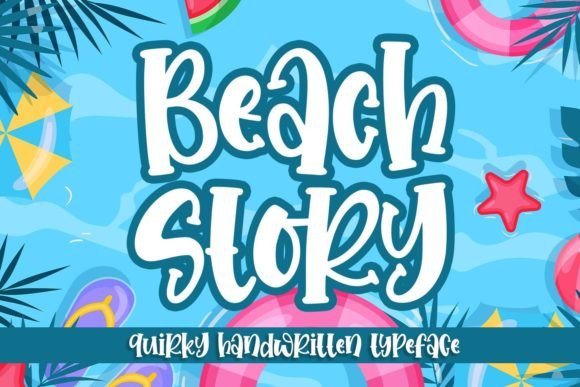
Beach Story, a wave of creativity, awaits your imagination! Splash into a realm of boundless design possibilities with this captivating script font. Discover a world where your words dance and twirl, leaving a trail of joy and wonder in their wake. Immerse yourself in the carefree spirit of the beach, where creativity flows like the ocean and laughter fills the air.
Unleash your inner artist and let Beach Story guide you through a journey of boundless creativity. With its playful and quirky nature, this handwritten display font adds a touch of friendly charm to any design project. Whether you're crafting game cards, invitations, posters, or social media posts, Beach Story will elevate your words with its infectious energy.
Visualize the delight on your customers' faces as they receive their game cards, each one adorned with unique and whimsical typography. The flowing lines and cheerful characters of Beach Story effortlessly capture the essence of fun and excitement, inviting players to dive into the game with enthusiasm.
With Beach Story as your creative companion, you'll find inspiration in the unlikeliest of places. Let your imagination set sail on a journey of discovery, where every stroke of the keyboard transforms into a splash of creativity. Dive into the depths of your imagination and let Beach Story guide you to design masterpieces that leave a lasting impression.
Embrace the vibrant spirit of Beach Story and let your creativity soar. Dive into a sea of endless possibilities and emerge with designs that captivate and enchant. Make your mark on the world, one letter at a time, with this extraordinary script font. Unleash your inner storyteller and let Beach Story carry your words to new heights of brilliance.